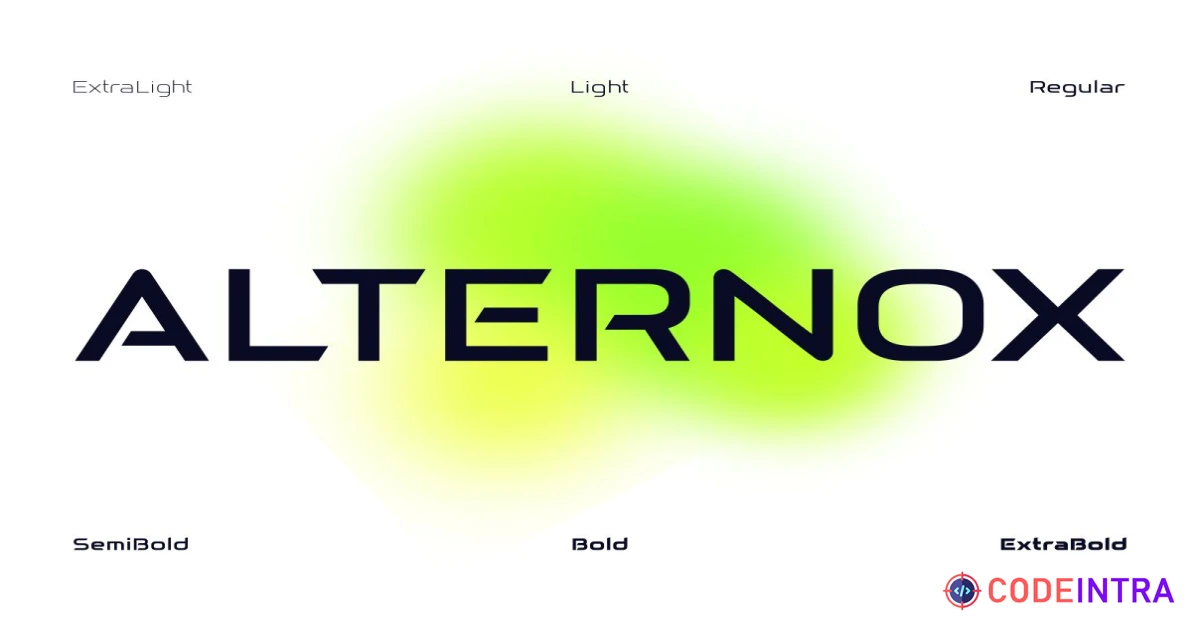
Introducing Alternox, an innovative and highly versatile sans serif font family meticulously crafted with sophisticated geometric shapes. This new typeface transcends conventional design, offering a distinctly futuristic aesthetic that is simultaneously modern, clean, and exceptionally professional. It's engineered to be the cornerstone of your visual identity, providing a strong yet elegant foundation for diverse creative endeavours.
Alternox is ideally suited to elevate a wide array of projects across various industries. Whether you're conceptualising striking logos and comprehensive brand identity systems, designing cutting-edge technology interfaces, creating memorable business cards, developing sleek web platforms, crafting refined stationery, or designing impactful displays and sports graphics, this font family delivers unparalleled clarity and a contemporary edge. Its adaptable nature ensures your message is conveyed with both precision and style, making your work stand out.
Beyond its stunning visual appeal, Alternox is equipped with robust OpenType features to enhance your typographic control and finesse. Enjoy seamless kerning, which refines spacing between letter pairs for optimal legibility, and integrated ligatures for elegant character combinations. The inclusion of alternates provides creative flexibility, allowing for nuanced design variations. This comprehensive family is meticulously packed into six distinct weights, offering a spectrum of expressiveness: from the delicate ExtraLight and versatile Light, through the balanced Regular and impactful SemiBold, to the assertive Bold and commanding ExtraBold.
Alternox ensures complete linguistic and character support, featuring a full set of uppercase letters, lowercase letters, numerals, punctuation, and extensive multilingual support. This makes it a globally ready solution for designers seeking a cohesive and powerful typographic voice.